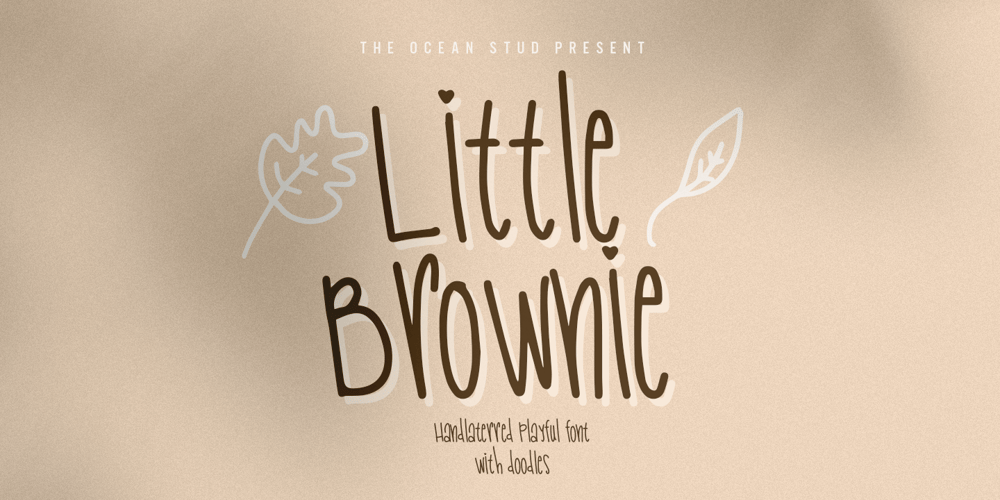
Little Brownie Font Family was designed by Laire Banyu and published by The Ocean Studio. Little Brownie contains 2 styles and family package options. Little Brownie is playful font family which puts a smile on your projects and will inspire you to create something fun and memorable. It is perfect for headings, flyer, greeting cards, product packaging, book cover, printed quotes, logotype, apparel design, album covers, etc.Features:– Multilingual Support– PUA Encoded– Numerals and PunctuationThank you for downloading from Ocean Stud.